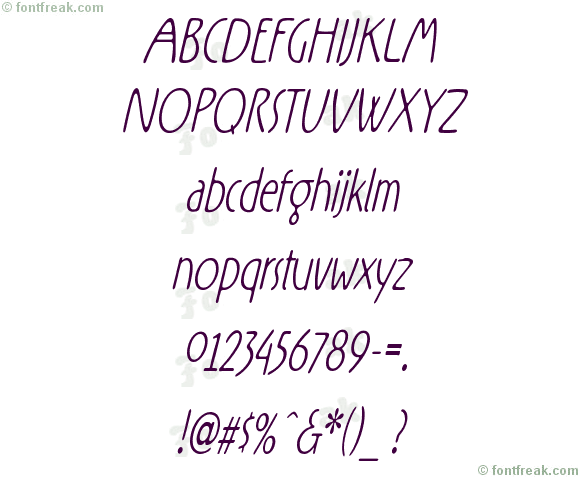
The Rx-ZeroZero font by Apostrophic Labs is a unique display typeface that seamlessly blends modern aesthetics with playful elements. Characterized by its distinctively rounded strokes and a clean, minimalistic design, this font stands out in various applications. The medium stroke weight offers a balanced contrast that enhances legibility, making it suitable for both casual and professional contexts. With its slightly condensed spacing, Rx-ZeroZero achieves a cohesive look that is visually appealing without sacrificing readability.
This font is particularly well-suited for creative projects such as branding for tech startups, eye-catching headlines for websites, and promotional materials like flyers or posters. Its playful yet sophisticated character makes it an excellent choice for restaurant menus or food packaging, where it can convey a sense of modernity and approachability. Additionally, Rx-ZeroZero is perfect for social media graphics and content creation, allowing influencers and content creators to maintain a distinctive visual identity across platforms.
What truly sets the Rx-ZeroZero font apart is its ability to evoke a sense of innovation while maintaining a friendly demeanor. This font breaks away from traditional norms, infusing modern design with a touch of whimsy. For anyone searching for a font that balances personality with professionalism, the Rx-ZeroZero font free download is an excellent choice. Embrace this unique typeface to elevate your design projects and make a lasting impression.